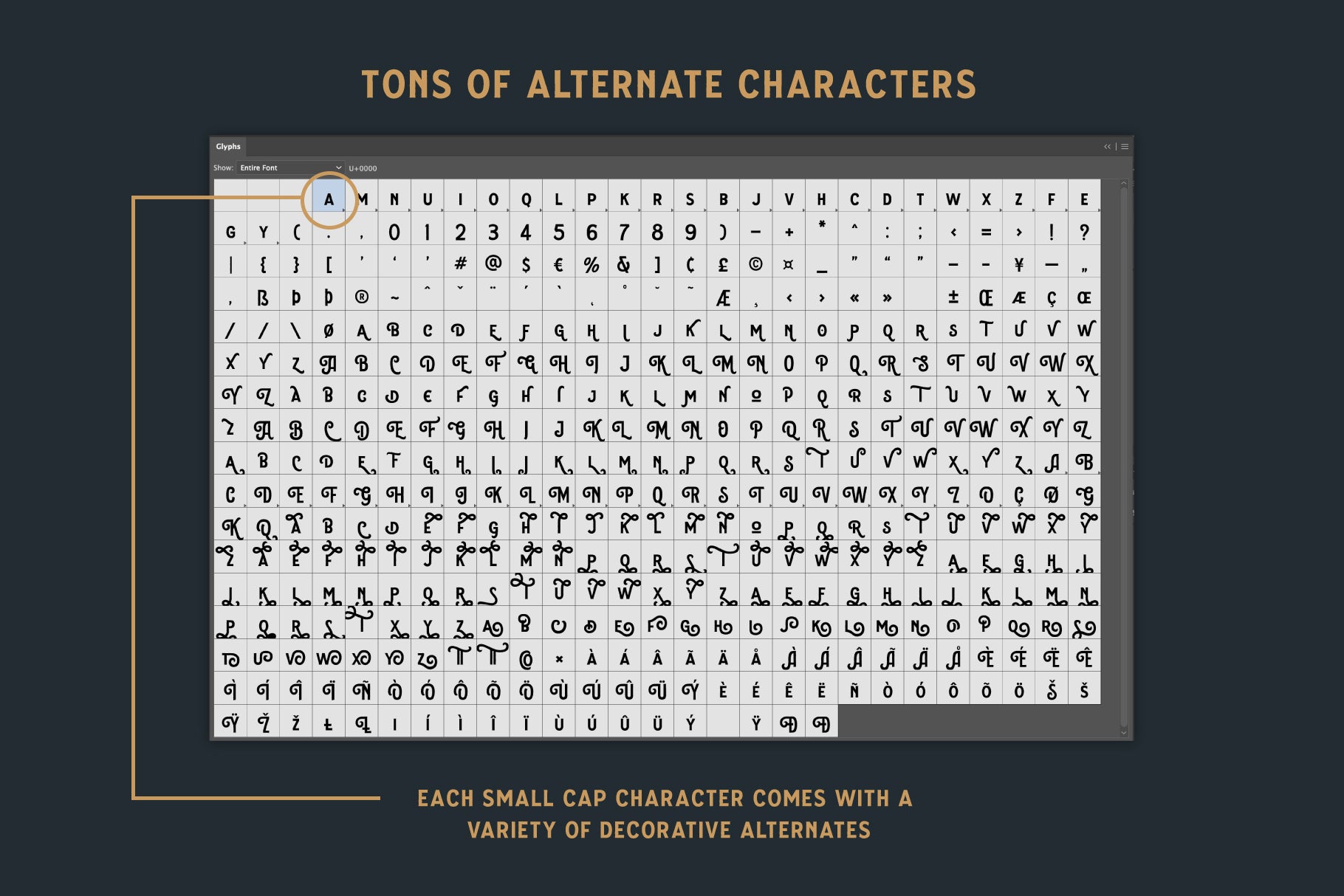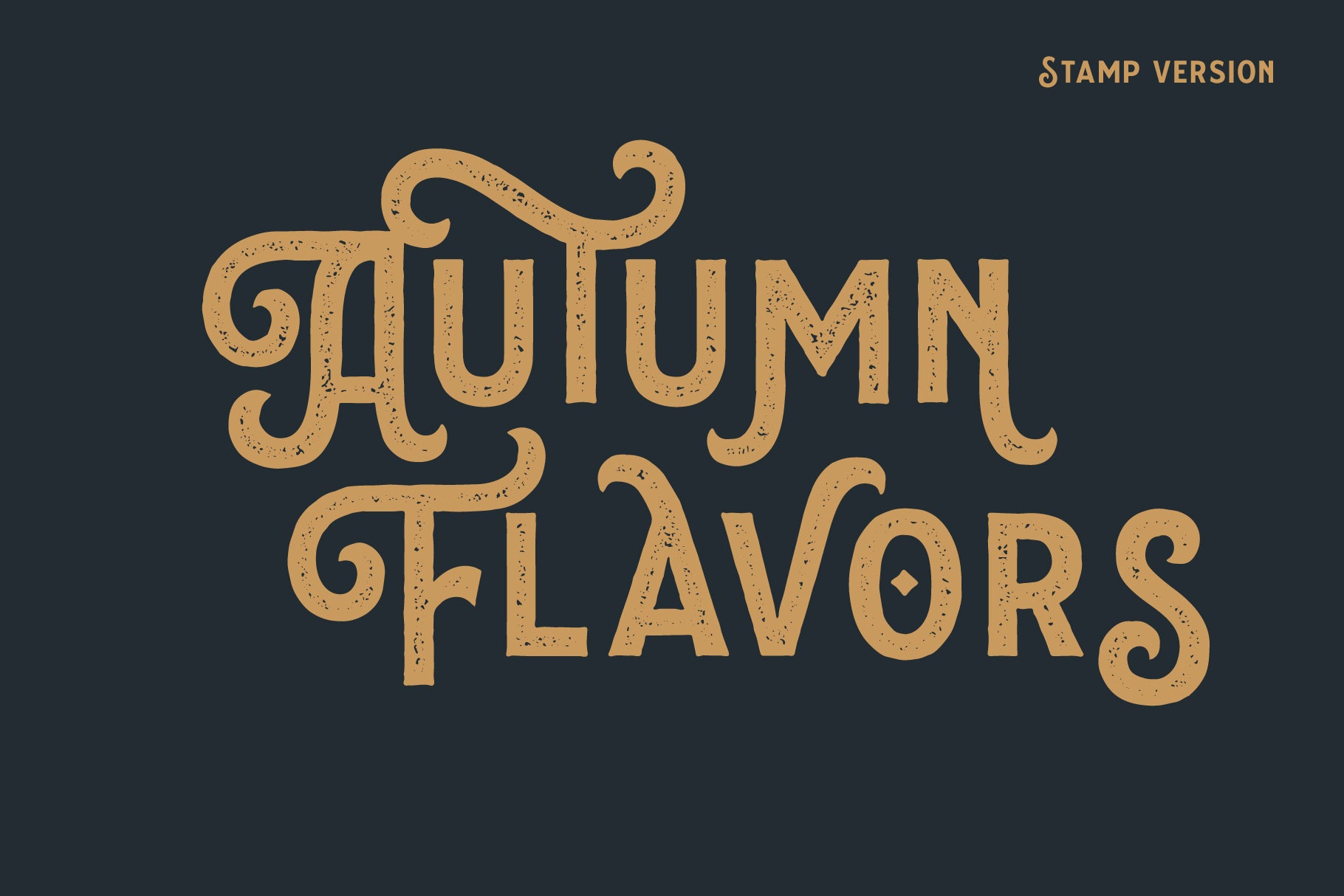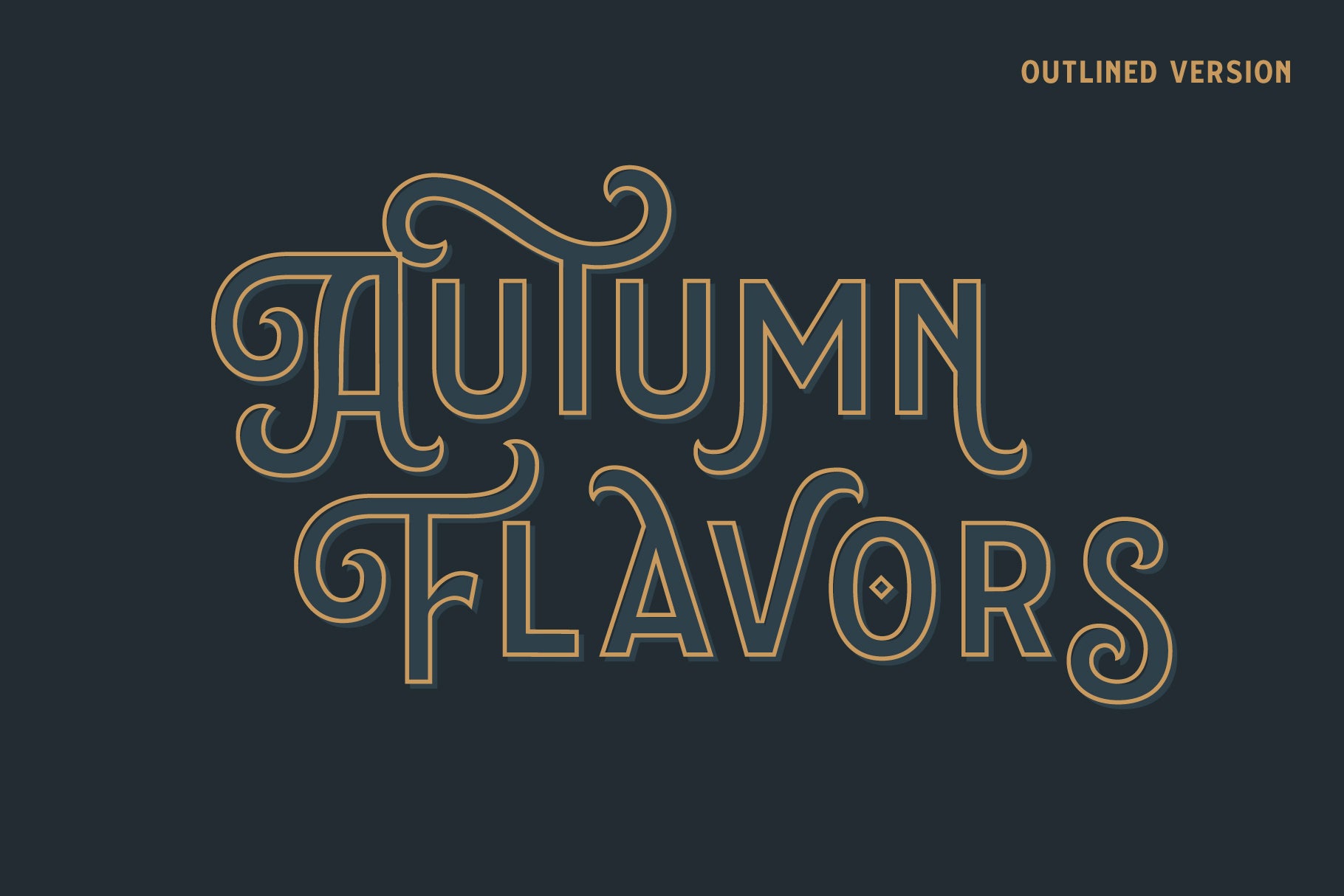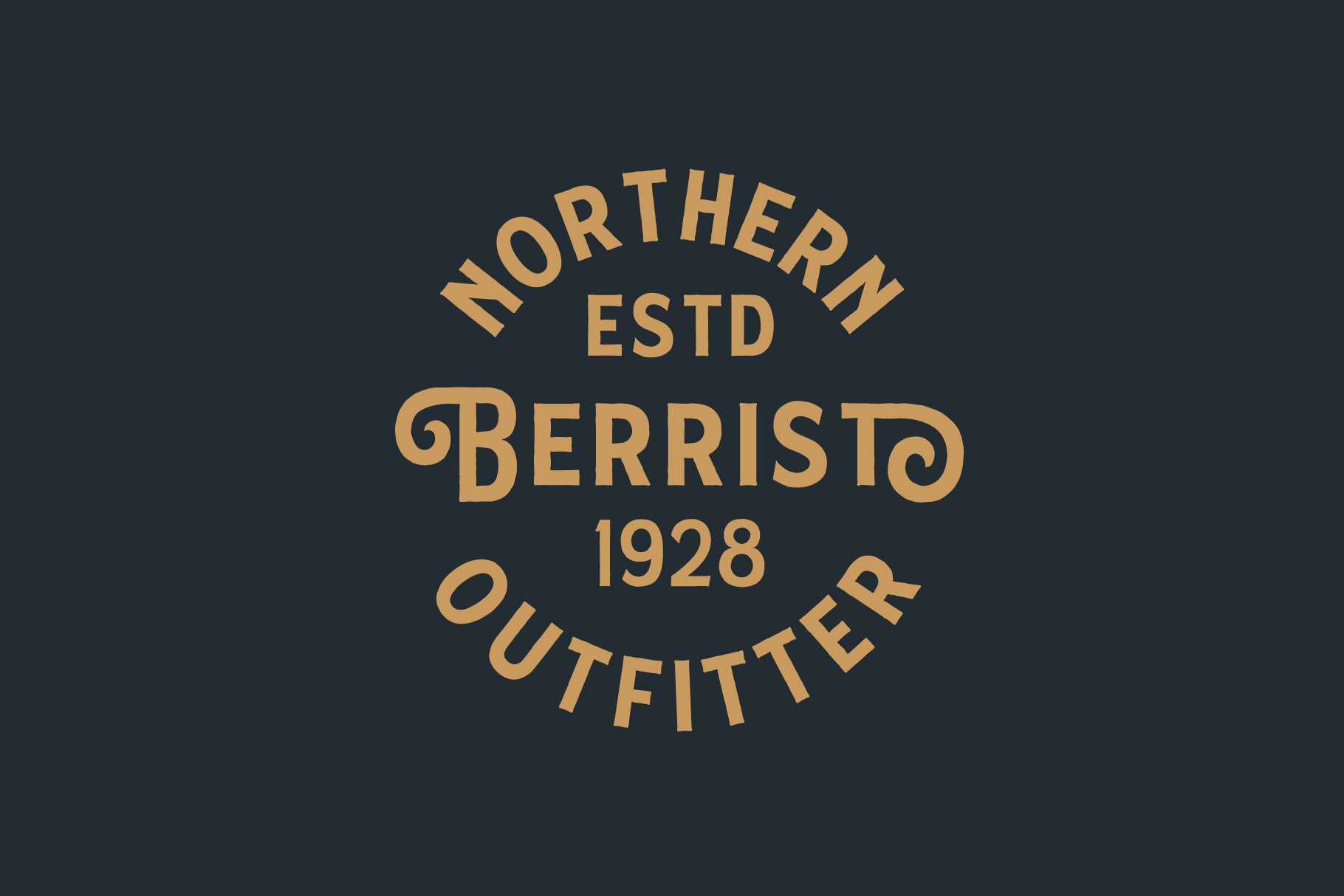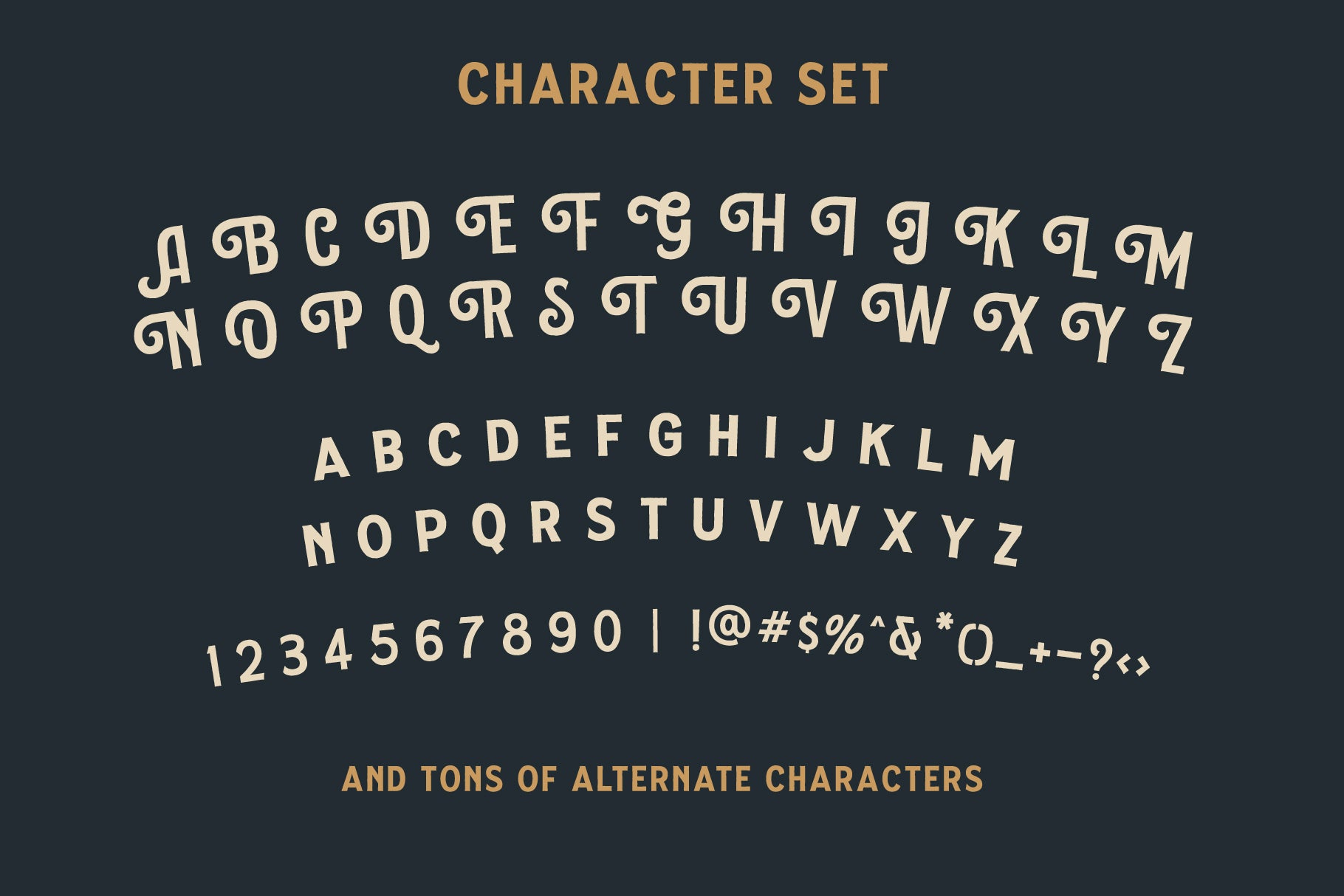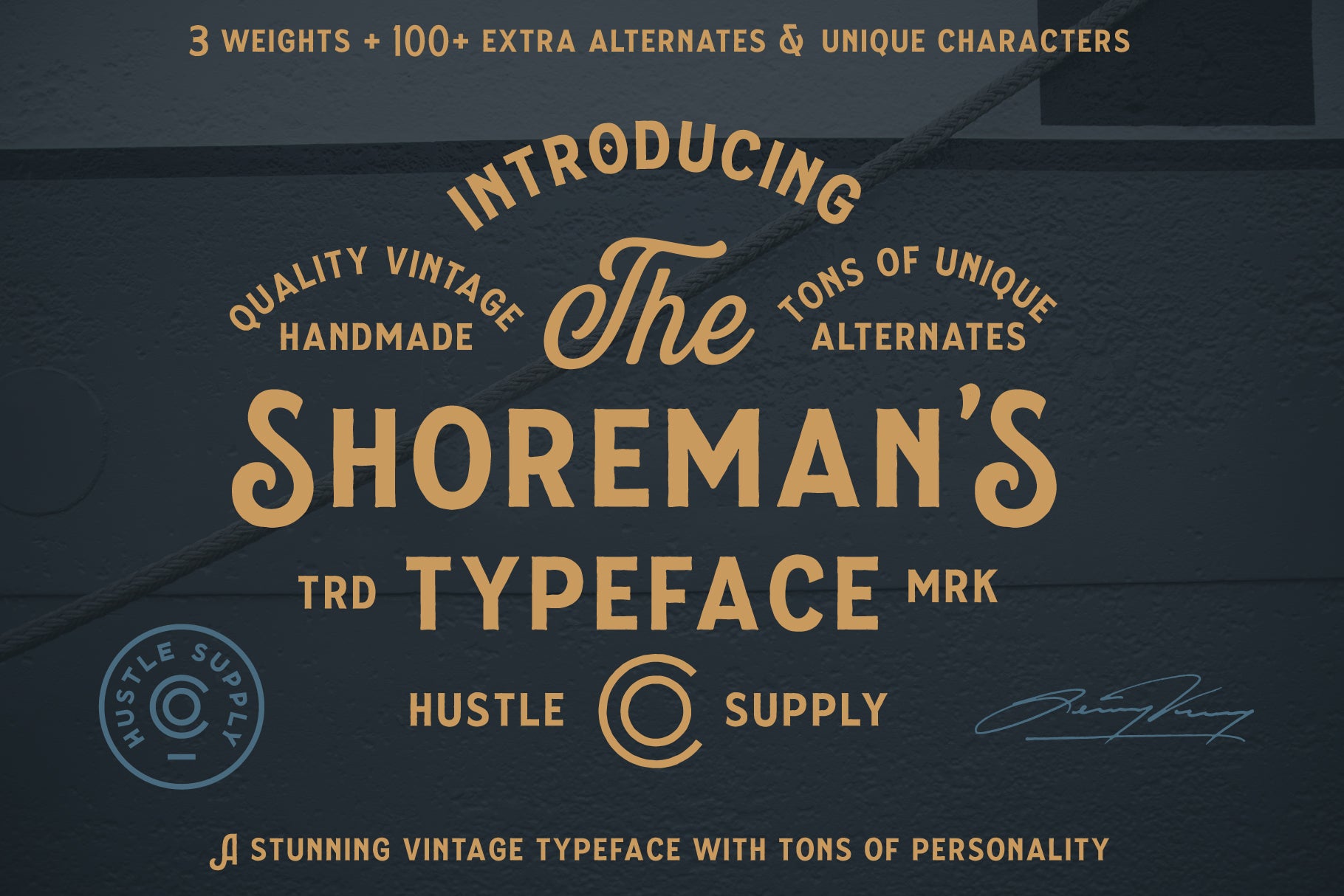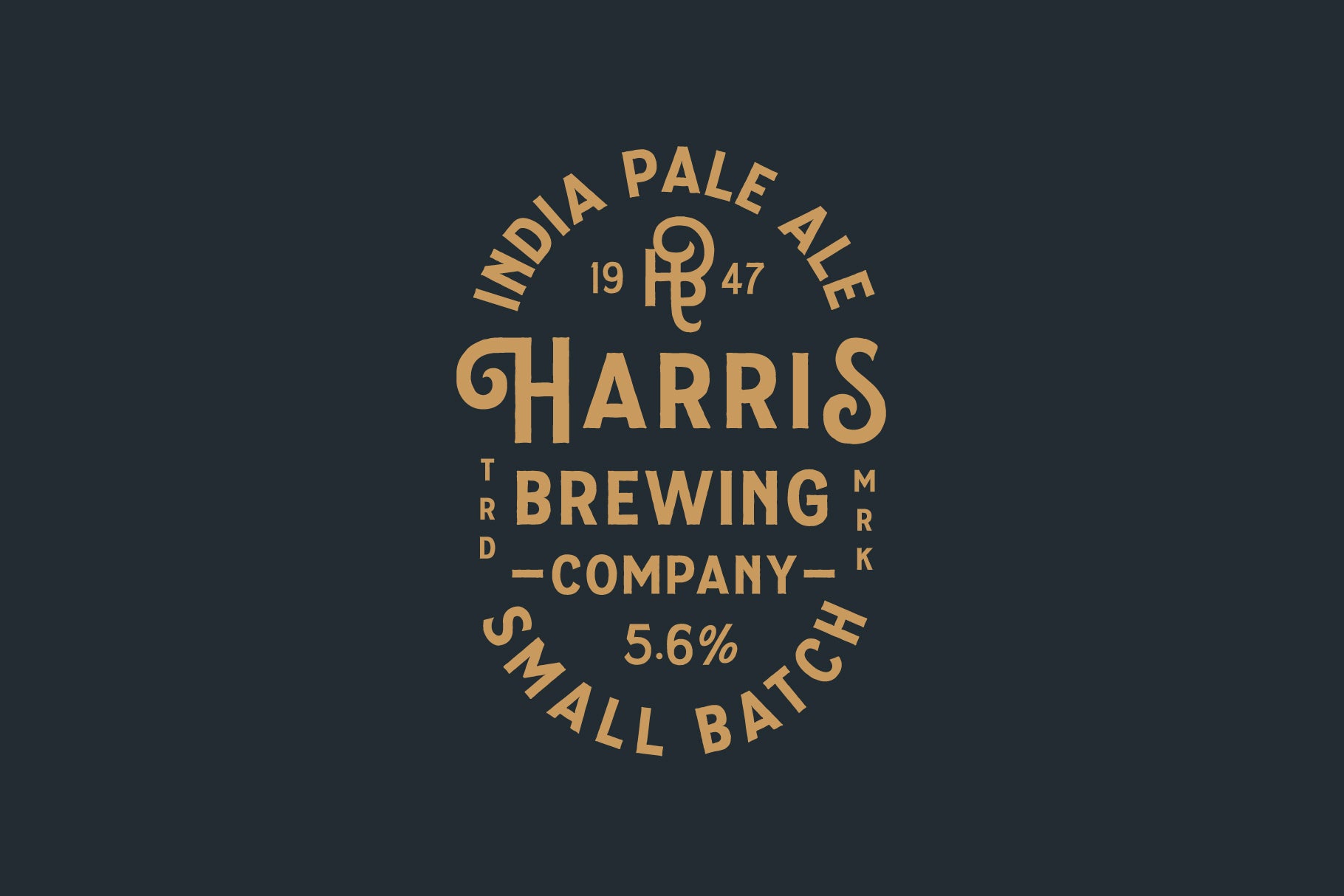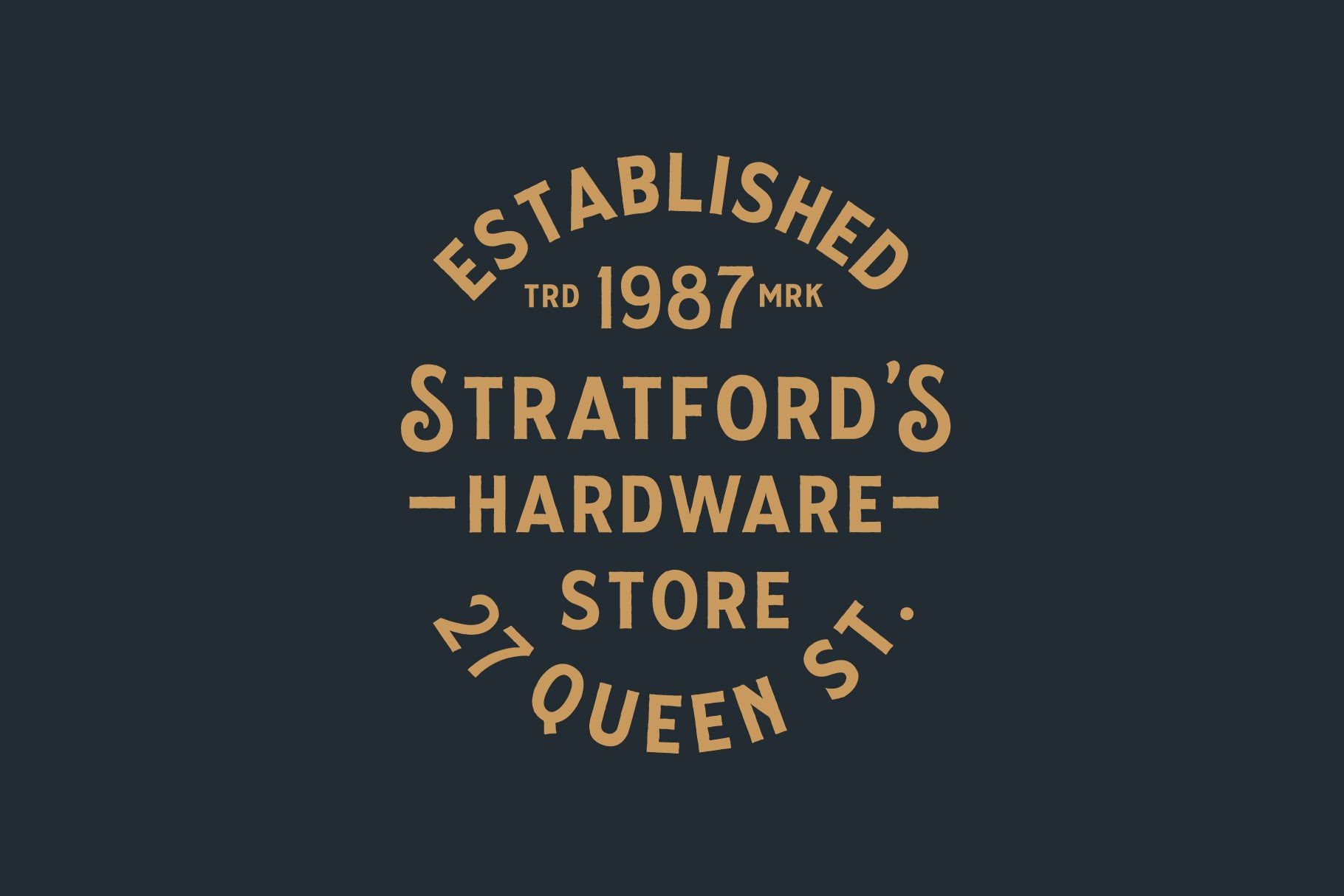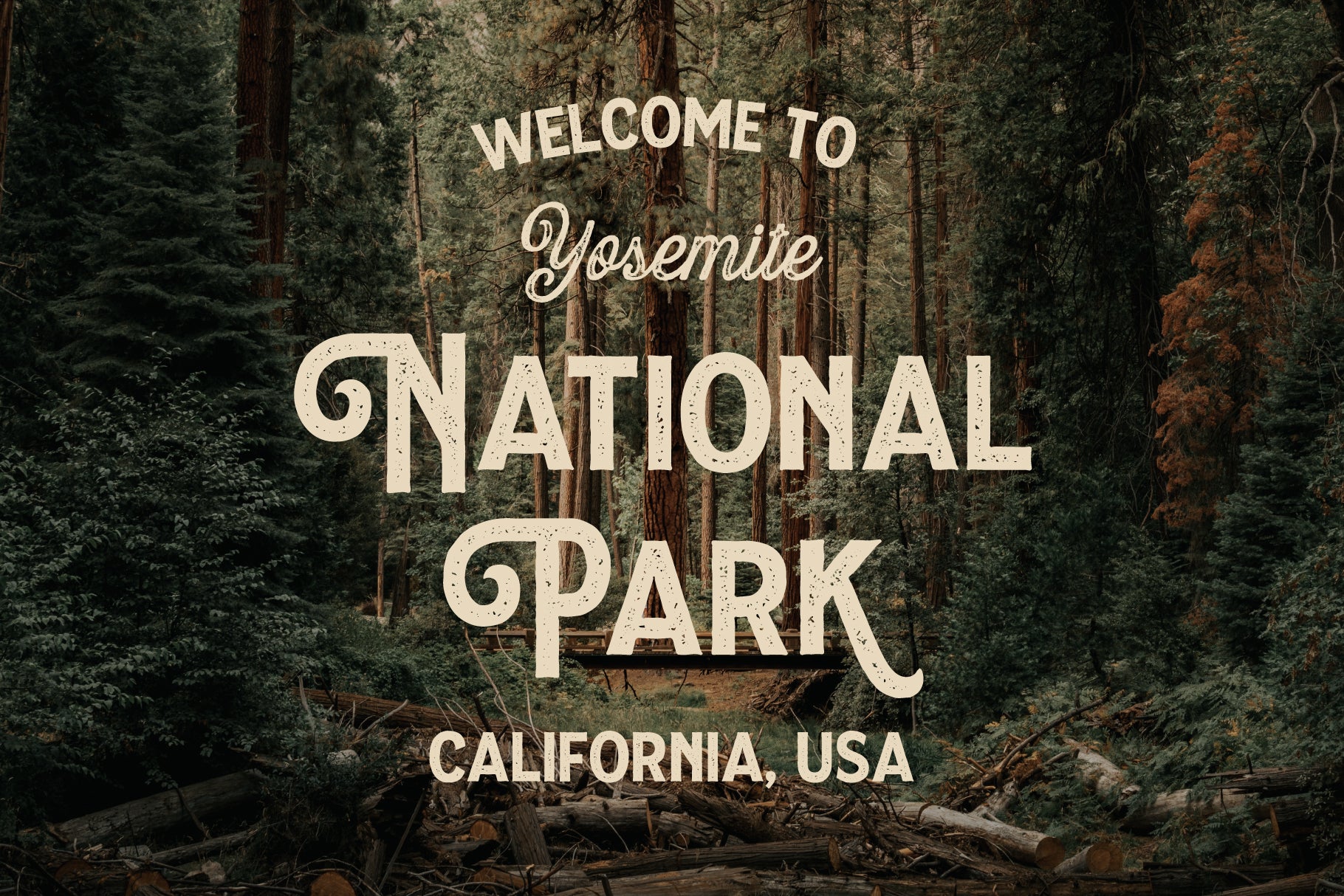
The Shoreman's Typeface
This typeface is a vintage Sans Serif Display Typeface. The Shoreman comes packed with over 450 glyphs containing many alternates and decorative characters. With so many options of characters, you can give any of your projects it's own unique character.
• Over 450 Glyphs with tons of alternates
• Western European characters